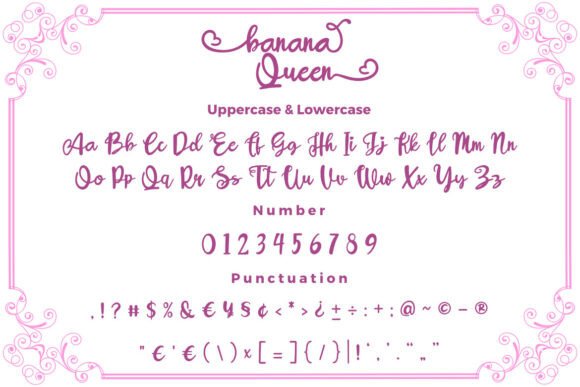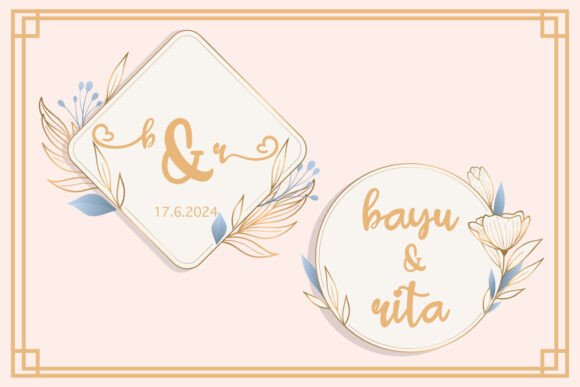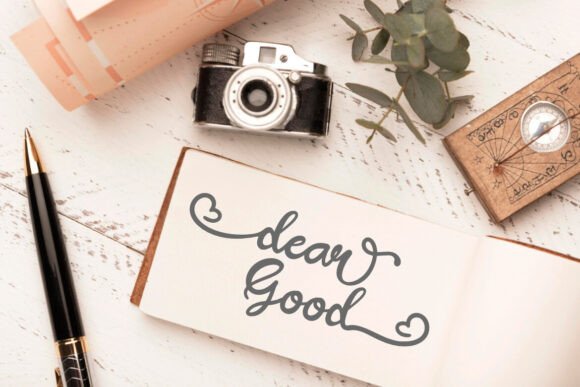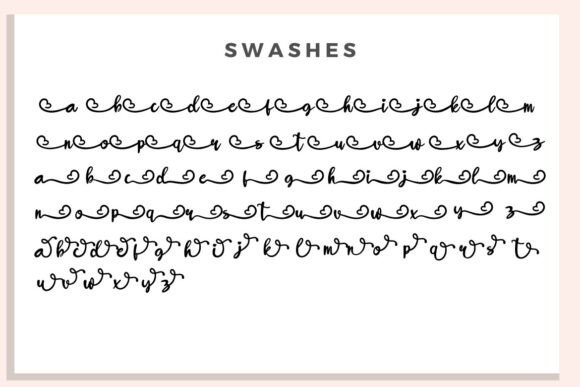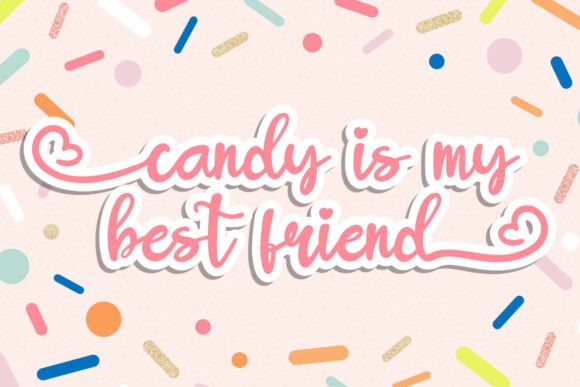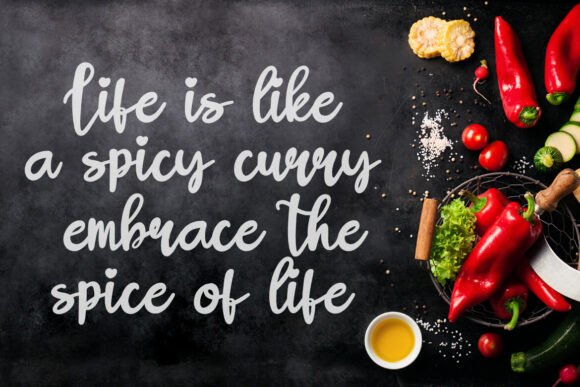
Introducing Banana Queen Font: Elevate Your Designs with Premium Quality
Are you a designer, crafty enthusiast, or business owner looking for a unique and high-quality font to elevate your visual creations? Look no further than the Banana Queen font, a premium typeface designed to add a touch of elegance and sophistication to your projects.
What is Banana Queen Font?
Banana Queen is a carefully crafted font, made with meticulous attention to detail and a high premium quality level. This font is perfect for a wide range of applications, including flyers, quotes, posters, banners, packaging, merchandise, logotypes, and much more. Its versatility and aesthetic appeal make it an excellent choice for designers and crafters seeking to add a distinctive flair to their work.
Key Features of Banana Queen Font
- High Premium Quality: The Banana Queen font is designed with a high level of craftsmanship, ensuring that it meets the highest standards of typography.
- Versatile: This font can be used across various mediums, from digital platforms to print materials, making it a valuable addition to any designer’s toolkit.
- Elegant and Sophisticated: The Banana Queen font exudes a sense of luxury and refinement, perfect for projects that require a touch of class.
- User-Friendly: The font is easy to read and works well in both large and small sizes, making it suitable for a wide range of applications.
Uses of Banana Queen Font
The Banana Queen font is incredibly versatile and can be used in a variety of contexts, including:
- Flyers and Brochures: Add a touch of elegance to your marketing materials with this sophisticated font.
- Quotes and Posters: Make your inspirational quotes and posters stand out with the Banana Queen font.
- Banners: Whether digital or print, this font is perfect for creating eye-catching banners.
- Packaging: Elevate your product packaging with a font that communicates luxury and quality.
- Merchandise: From t-shirts to mugs, the Banana Queen font can add a unique touch to your merchandise.
- Logotypes: Create a memorable brand identity with this distinctive and elegant font.
Why Choose Banana Queen Font?
In a world where visual content is king, having a unique and high-quality font can make all the difference. Here are a few reasons why Banana Queen stands out:
- Unique Aesthetic: The Banana Queen font offers a distinctive look that can help your designs stand out from the crowd.
- Time-Saving: With its versatility and ease of use, this font can save you time and effort in finding the perfect typeface for your projects.
- Professionalism: The high premium quality of the Banana Queen font ensures that your designs look professional and polished.
Whether you’re a professional designer, a crafty enthusiast, or a business owner looking to elevate your brand, the Banana Queen font is an excellent choice. Its high premium quality, versatility, and elegant aesthetic make it a valuable asset for any creative project. By incorporating the Banana Queen font into your designs, you can add a touch of sophistication and luxury that will set your work apart.